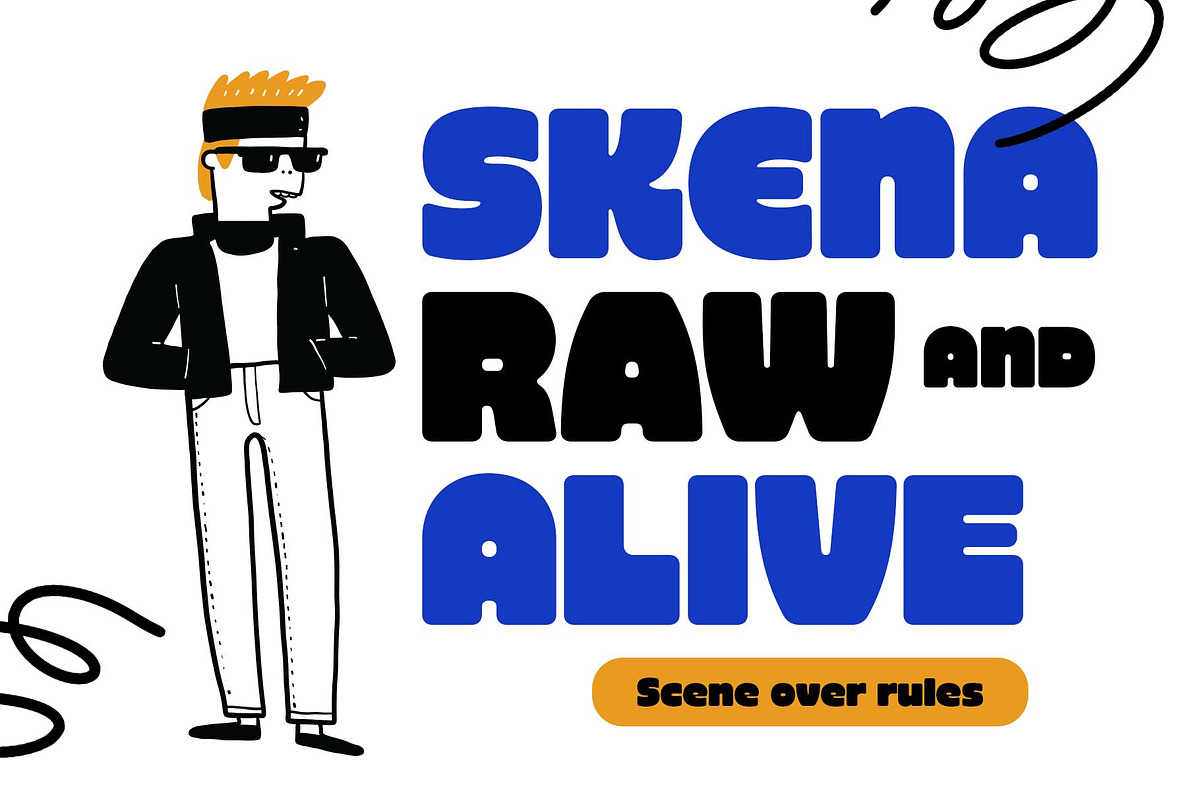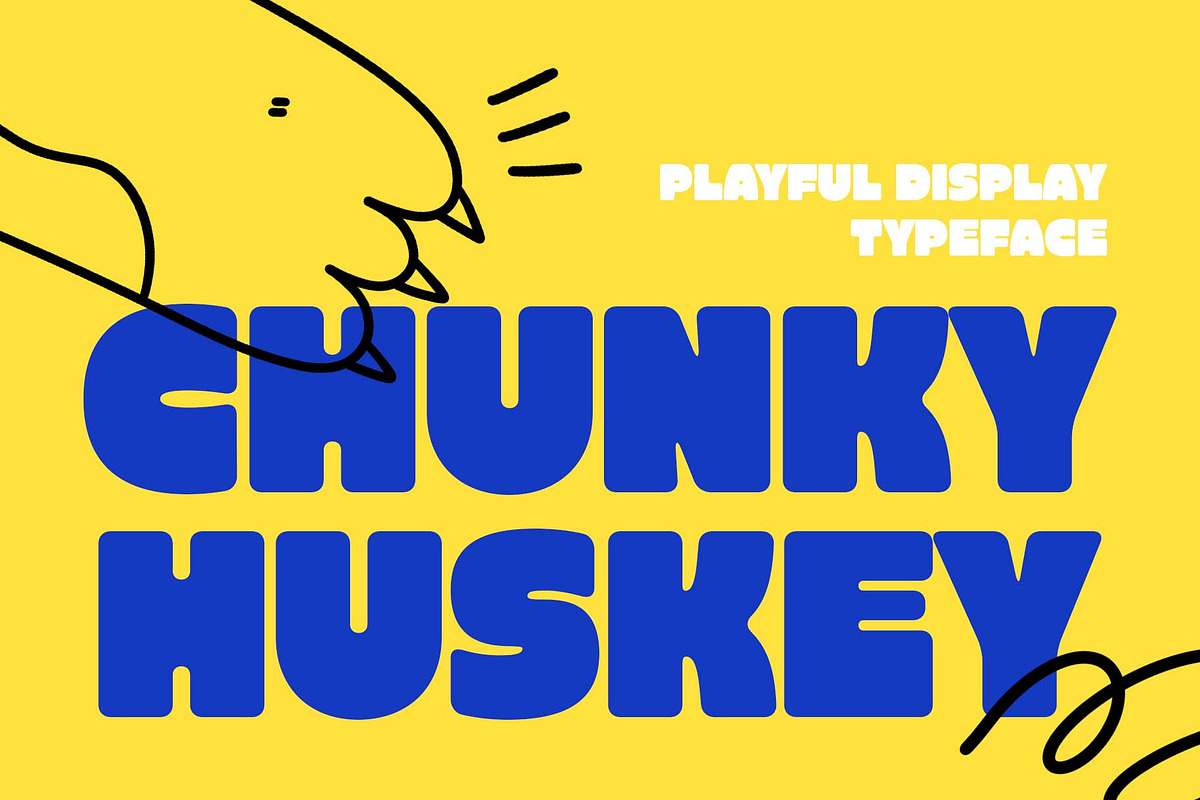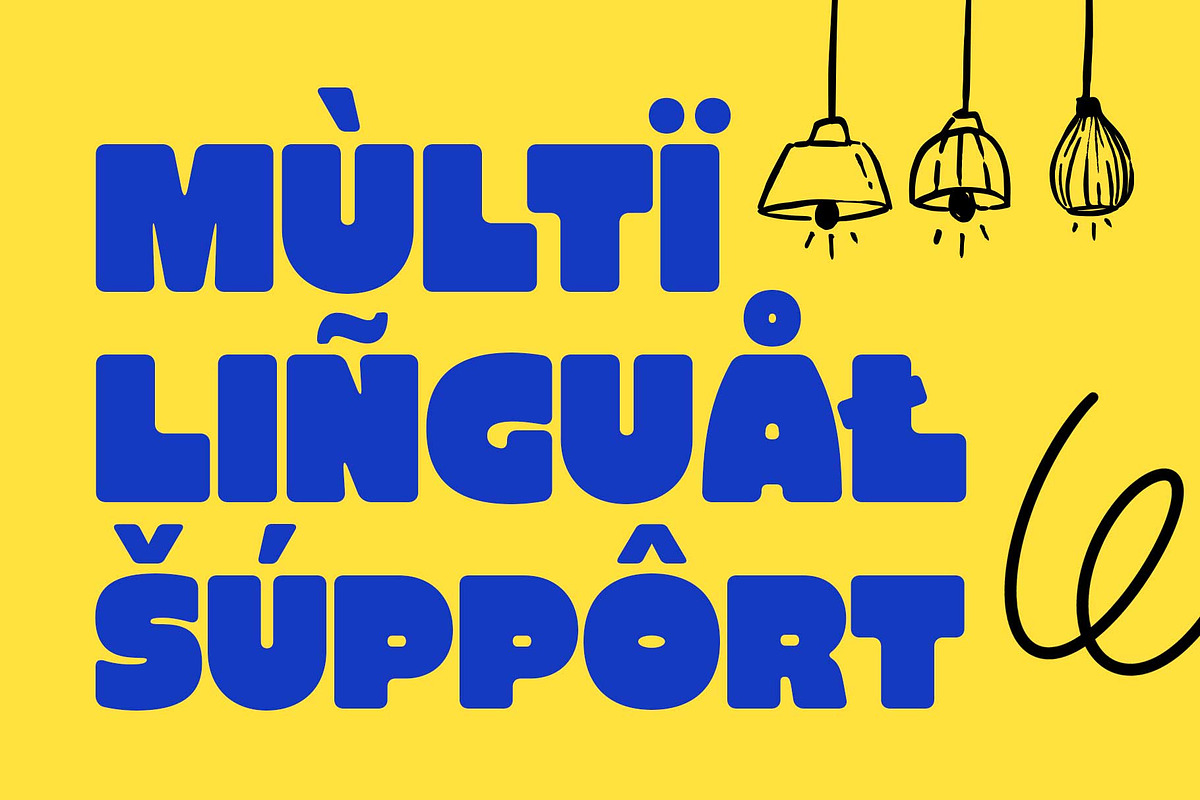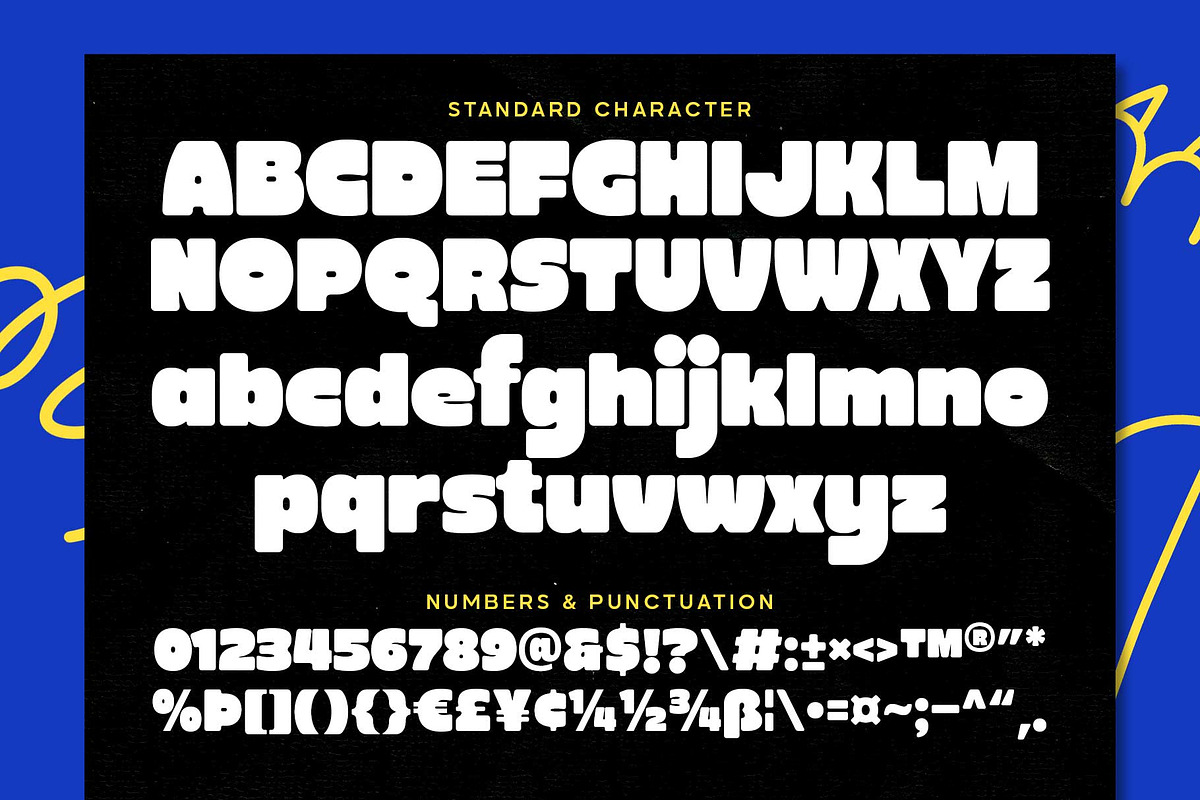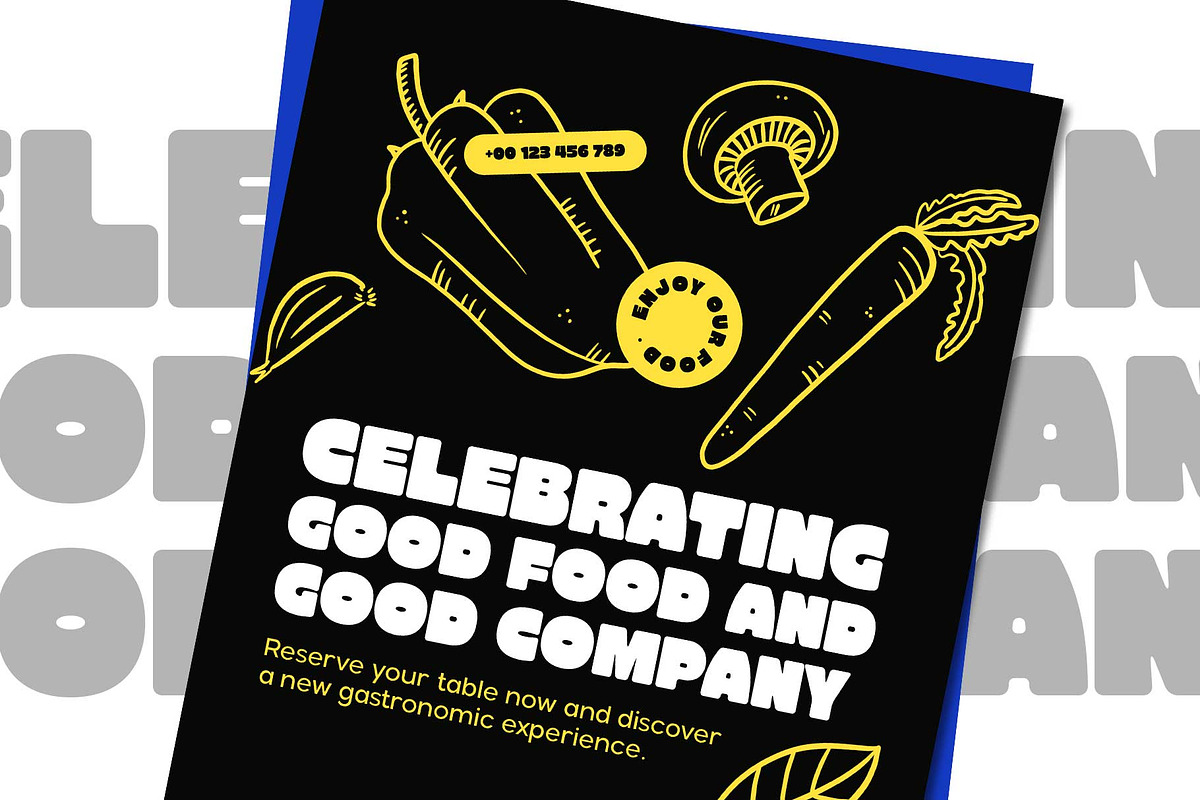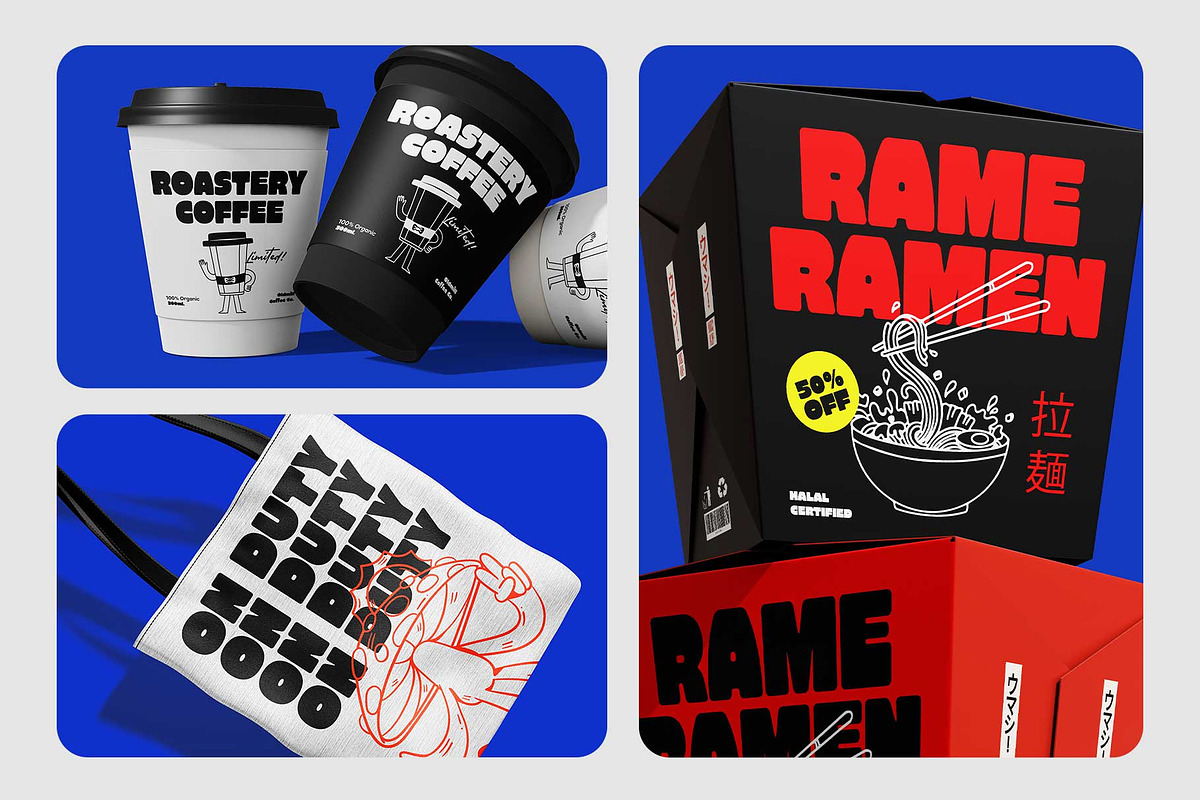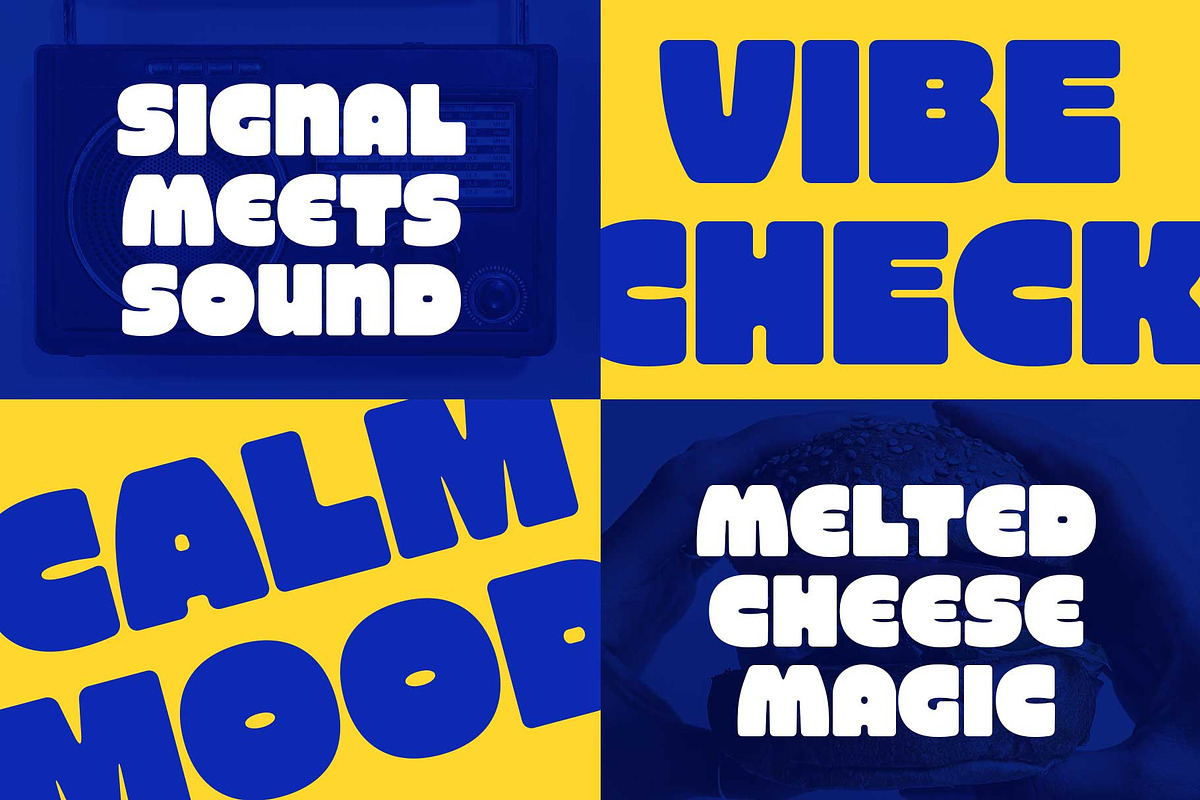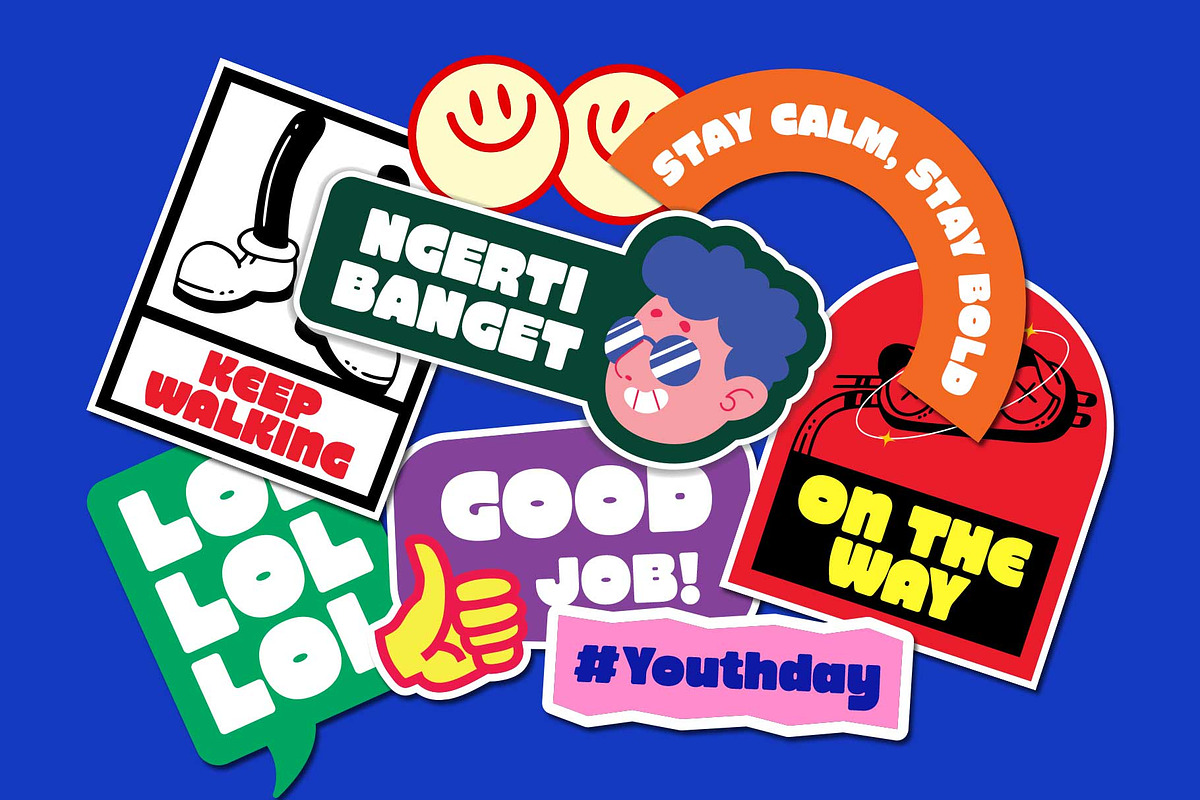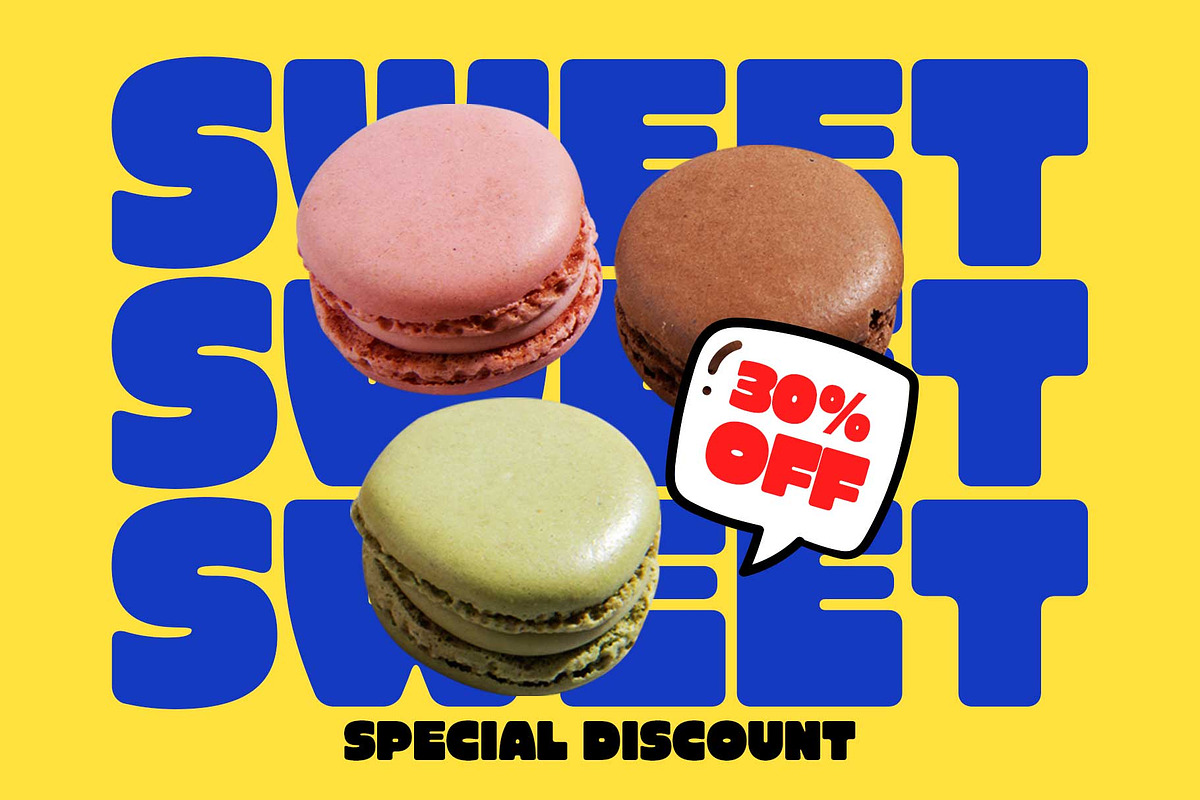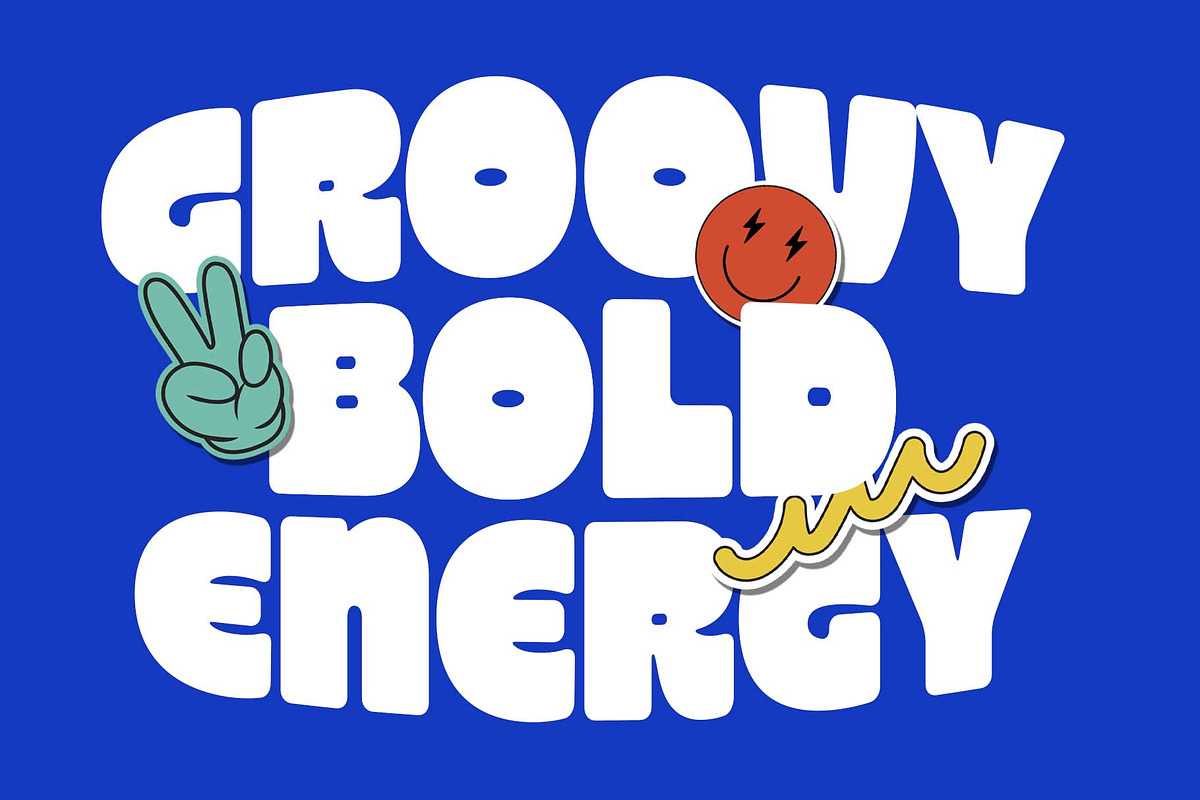
Retro Sans - Chunky Huskey
Chunky Huskey is a heavy, rounded display font with a cheerful attitude and a slightly quirky edge. Built with thick forms and compact spacing, it creates a strong blocky presence while still feeling soft, friendly, and easygoing.
This typeface leans into a more “cute but confident” personality—less retro-groovy, more modern playful branding. Every letter is designed to feel solid and stable, making your words look bold without feeling aggressive.